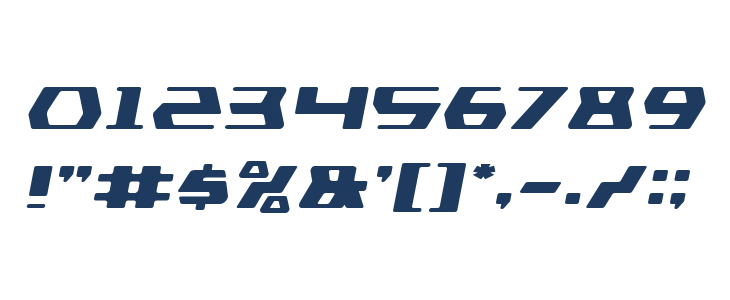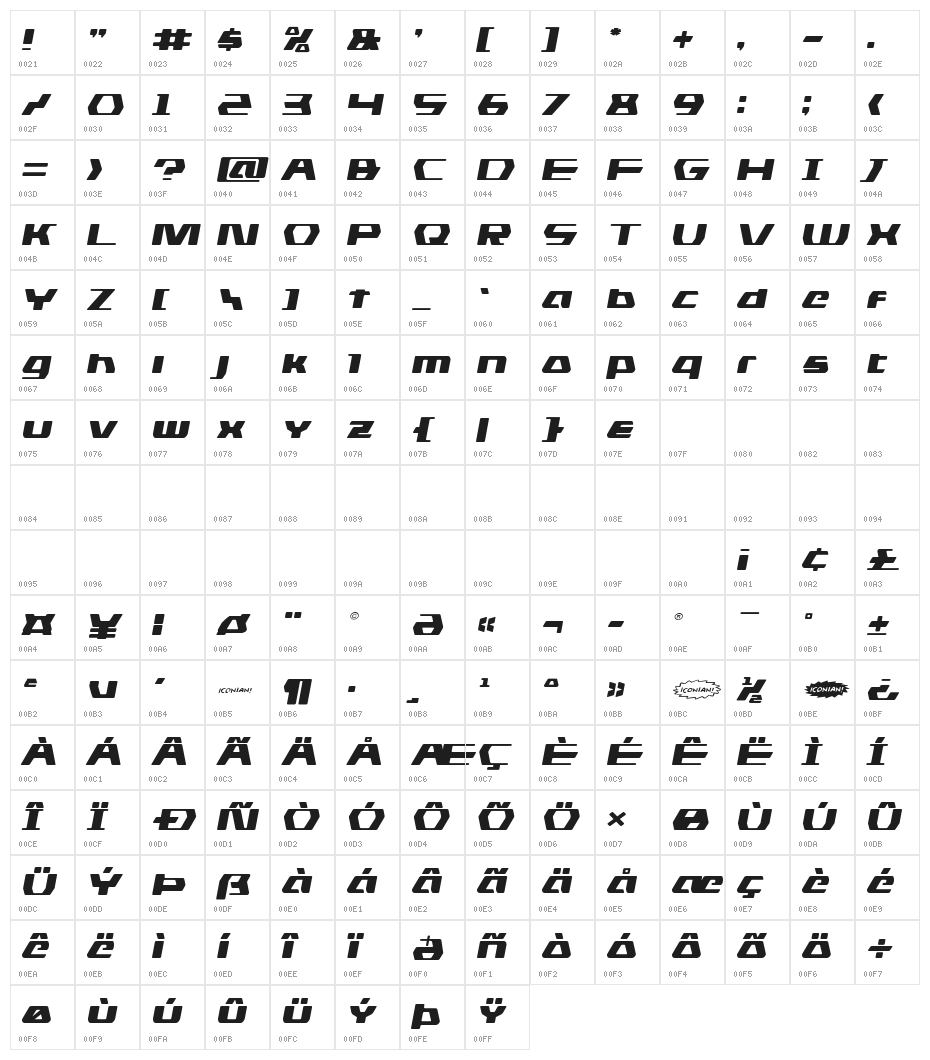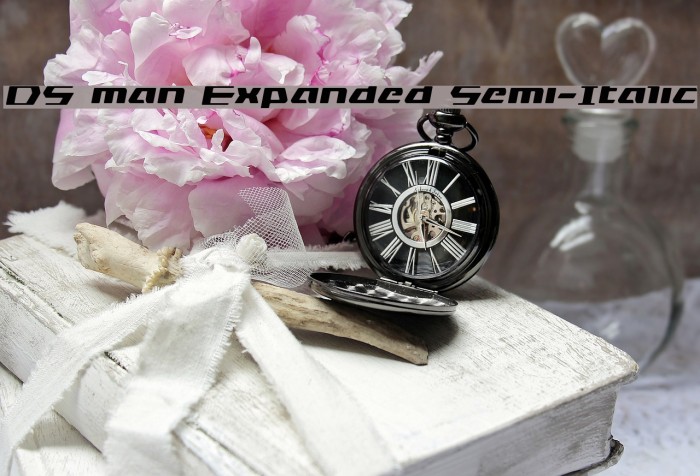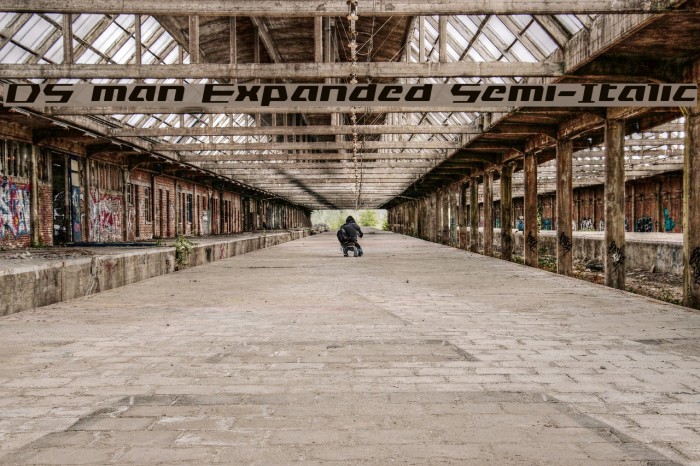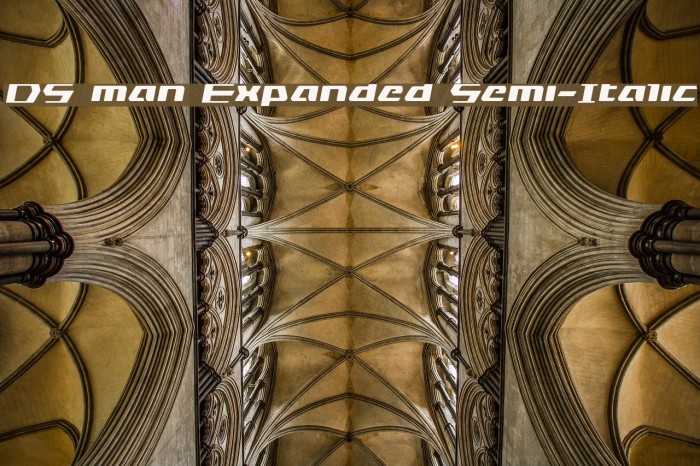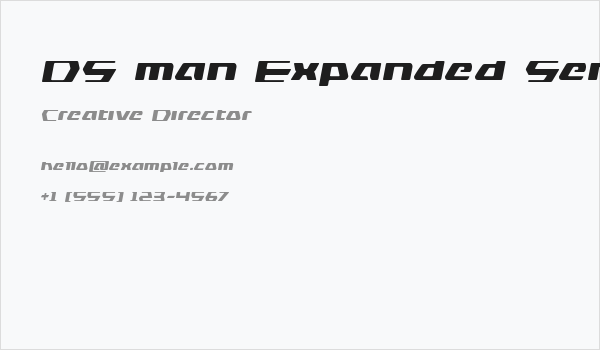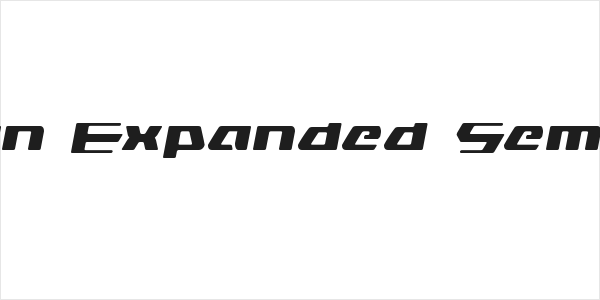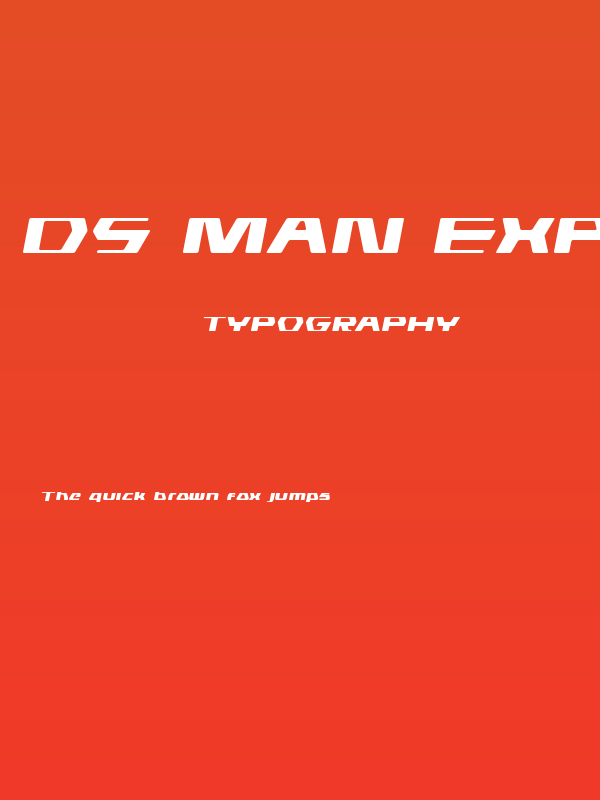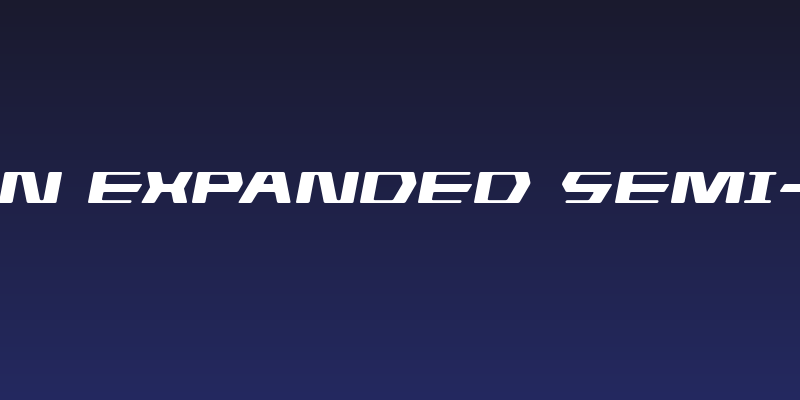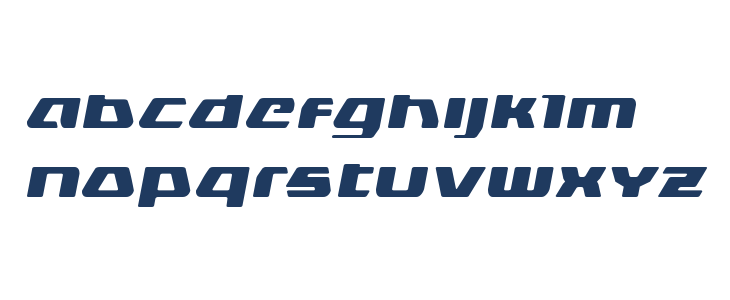
DS man Expanded Semi-Italic Font
DS man Expanded Semi-Italic Description
This font features a bold and dynamic design with an expanded and semi-italicized style. The characters are angular and geometric, giving a futuristic and modern appearance. The uppercase and lowercase letters maintain a consistent slant, enhancing the italic effect. The numbers and special characters follow the same design principles, ensuring uniformity across all glyphs. The boldness of the font makes it highly legible and impactful, suitable for attention-grabbing applications.
| Proposed Projects | Ideal for sci-fi themed projects, modern branding, posters, and digital interfaces. |